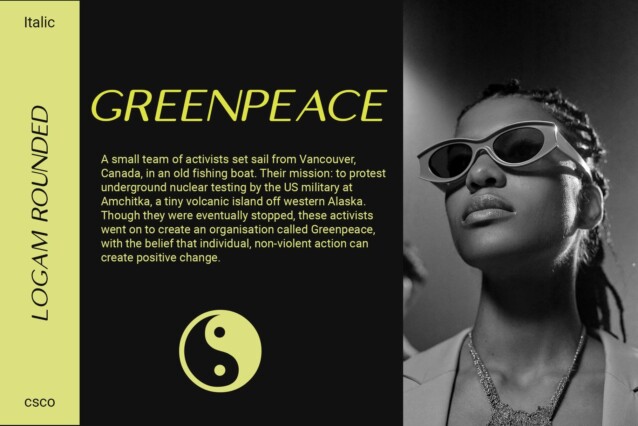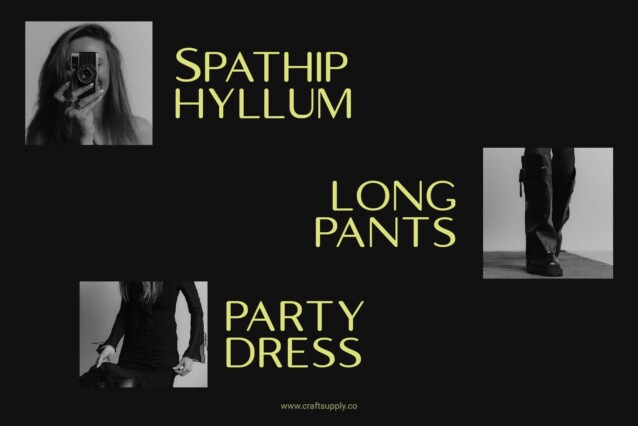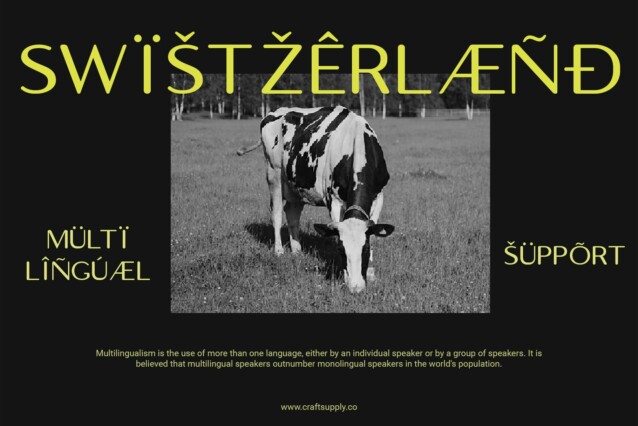
Logam Rounded Font
Logam Rounded Font is a sleek and striking sans serif typeface, distinguished by its high contrast and rounded stem terminals.
Contemporary Elegance This font exudes a sense of contemporary elegance, seamlessly blending the sharp contrasts of its letterforms with the soft, rounded edges of its terminals. This unique combination creates a balanced and modern aesthetic that is both visually captivating and stylistically versatile.